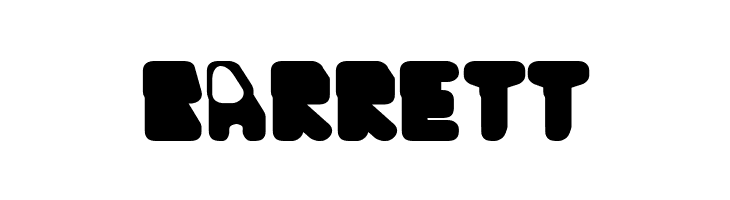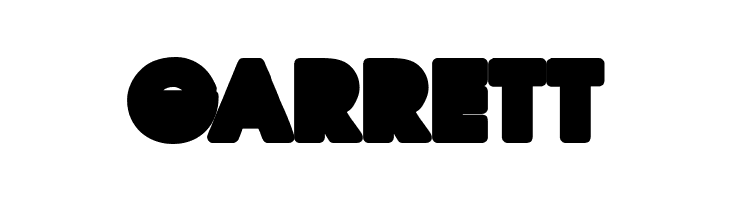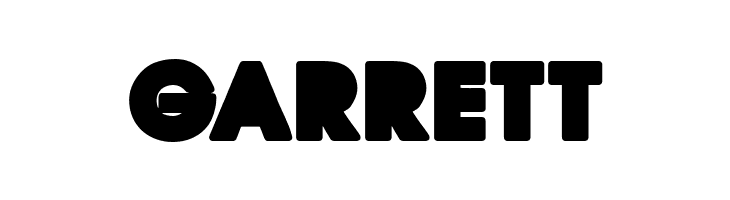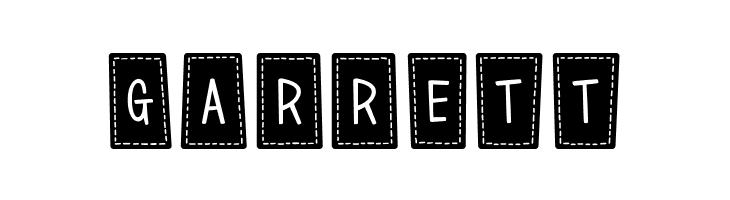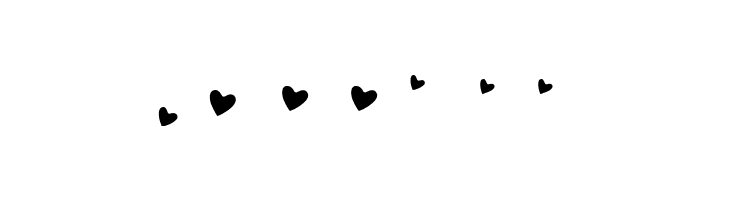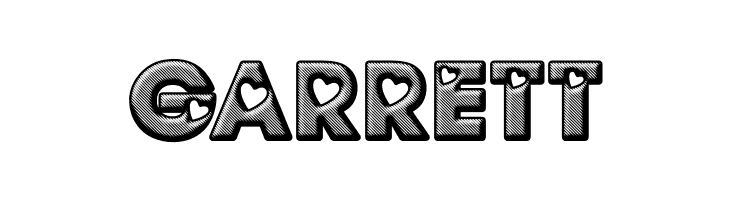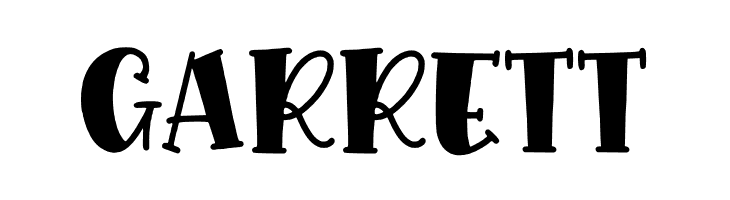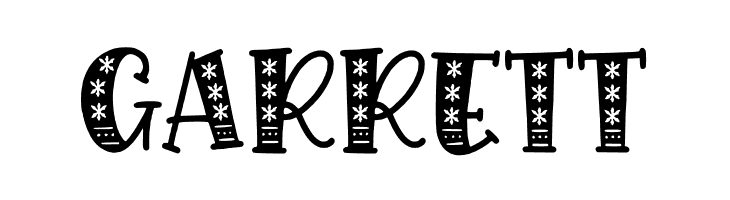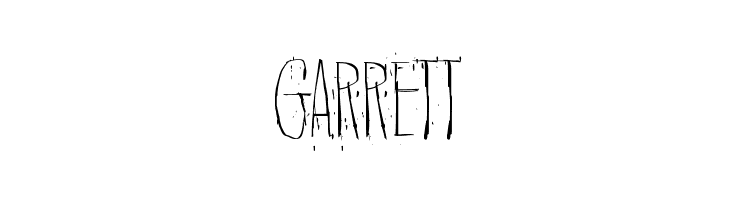
• Quiet Horror Story
A haunting, distressed font with tall, narrow letterforms and a scratchy texture.
• Quilt*Patches
( Fonts by Brittney Murphy Design )
A playful, patchwork-style font with dotted borders and a handcrafted feel.
• Quinine
• Quirkid Hollow
( Fonts by Abo Daniel Studio )
A playful, decorative font with bold, hollow characters and star patterns.
• Quirkid Solid
( Fonts by Abo Daniel Studio )
A playful and whimsical font with bold, dynamic letterforms and quirky design elements.
• QUIRKY BACK ONE Regular
( Fonts by Billy Argel )
A bold, rounded font with a playful and quirky style.
• QUIRKY BACK Regular
( Fonts by Billy Argel )
A bold, playful font with thick, rounded characters and a retro vibe.
• QUIRKY CLEAN Regular
( Fonts by Billy Argel )
A bold, geometric font with playful and quirky elements.
• QUIRKY LOVE HEARTS Regular
( Fonts by Billy Argel )
A playful decorative font with heart motifs, perfect for romantic and whimsical designs.
• QUIRKY LOVE Regular
( Fonts by Billy Argel )
A bold, decorative font with heart cutouts and striped patterns.